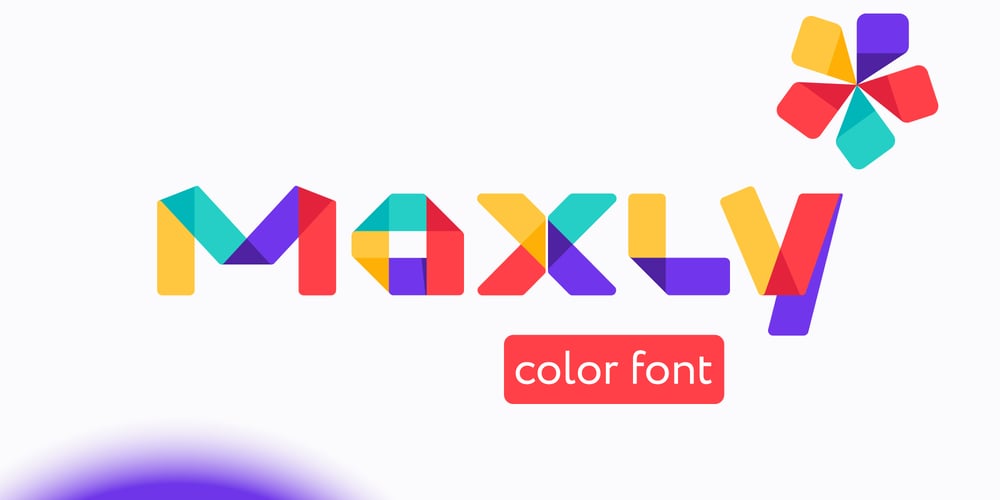
Maxly Font Family was designed by Roman Korolev and published by Kaer. Maxly contains 2 styles and family package options. Hey, friends! I’m here for you with my new colored font Maxly. All the letters in this font are colored brightly and vividly with colors overlay. You can use it in your corporate identity, in magazines, posters, clothes design, and others. —*You can use color fonts in PS since CC 2017, AI since CC 2018, ID since CC 2019, QuarkXPress since 2018, Pixelmator, Sketch, Affinity Designer Since macOS 10.14 Mojave, Paint.NET Windows only.**Please note that the Canva & Corel doesn’t support color fonts!*—What’s included?* Colored and regular B&W styles* Numbers* Symbols* Multilanguage supportIf you have any questions or issues, please contact me: kaer.pro@gmail.com Best, Roman.